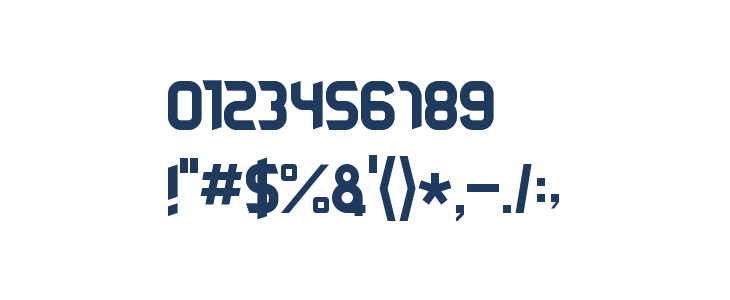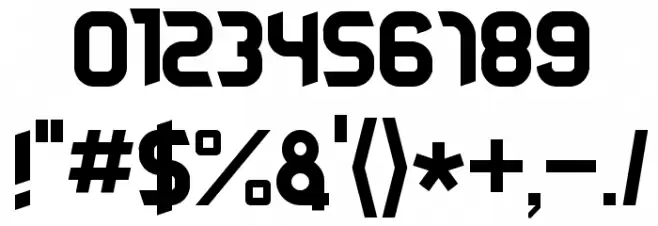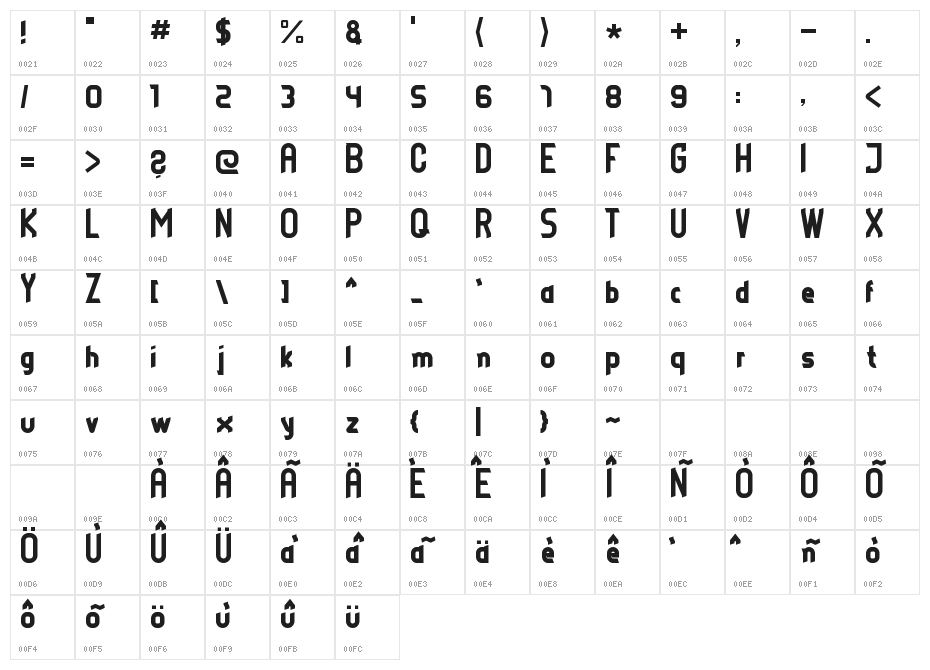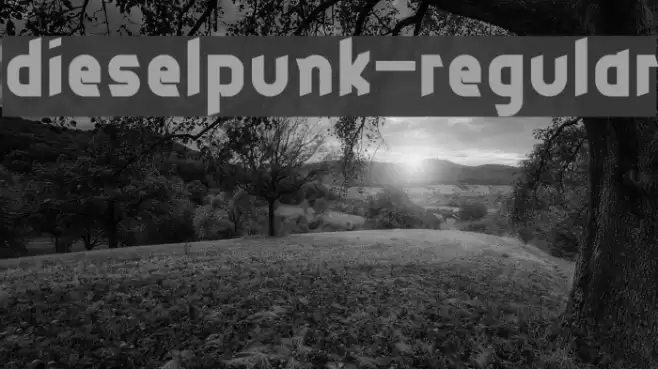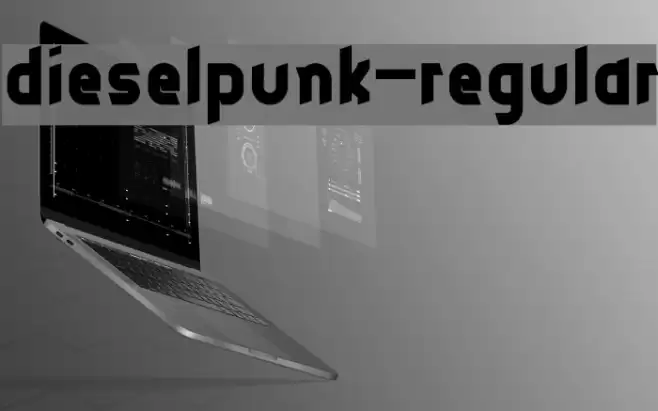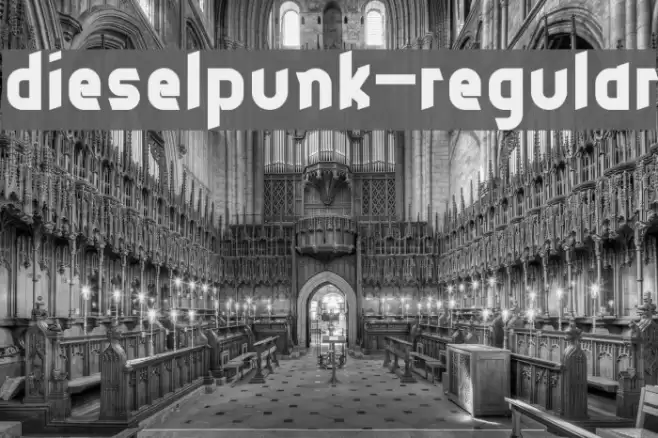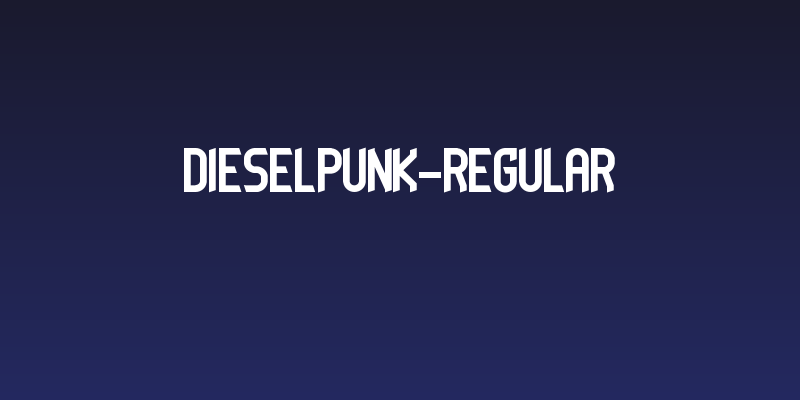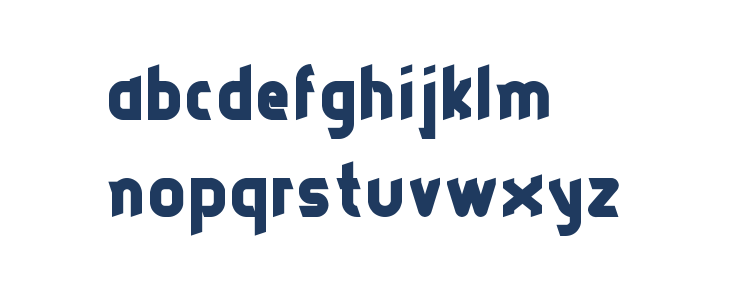
dieselpunk-regular Font
dieselpunk-regular Description
This font features a bold and geometric design with a distinctive industrial aesthetic. The characters are angular and sharp, evoking a sense of strength and modernity. The uppercase letters are particularly striking, with unique cuts and angles that give them a futuristic feel. The lowercase letters maintain the same geometric style, ensuring consistency throughout the typeface. Numbers and special characters are designed to complement the overall look, making this font versatile for various applications. Its bold presence makes it ideal for attention-grabbing headlines and logos.
| Proposed Projects | Ideal for sci-fi themed projects, branding for tech companies, video game titles, and posters. |